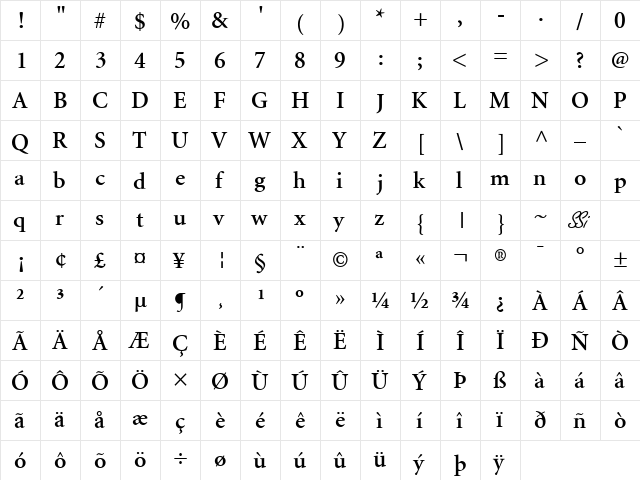
Atlantix SSi Semi Bold Font Preview
Atlantix SSi Semi Bold
Atlantix SSi Semi Bold Font Details
Design Context for Atlantix SSi Typeface
Atlantix SSi takes a measured approach to typography — its balanced proportions and neutral character make it a reliable workhorse for both digital and print work. The heavy weight commands attention and anchors typographic hierarchies.